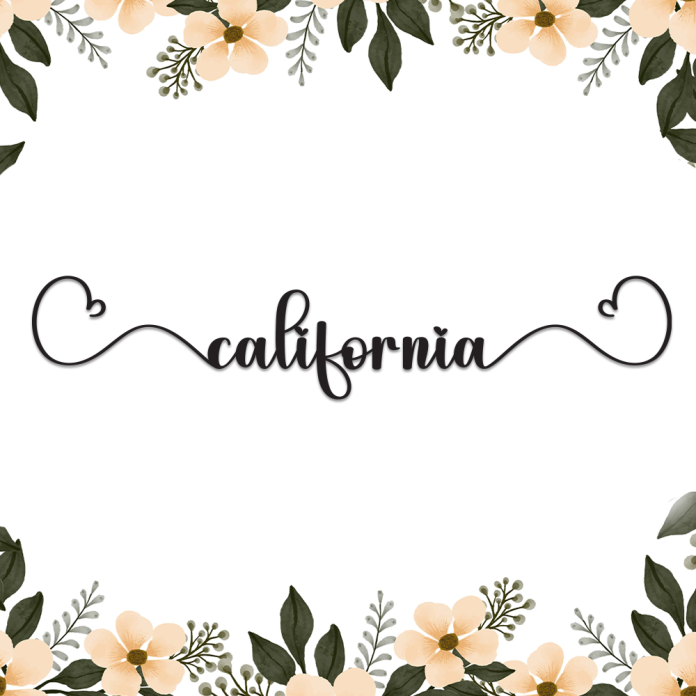
California is a stylish handwritten font inspired by the carefree vibe of the West Coast. With its smooth strokes and modern script flow, this font adds a laid-back yet fashionable touch to logos, branding, social media posts, and creative projects.
Its handwritten elegance blends effortlessly with contemporary design trends, making it perfect for those who want to stand out with style.
Modern Handwriting Style
Capture the sunny spirit of California in your design with this effortlessly chic font.